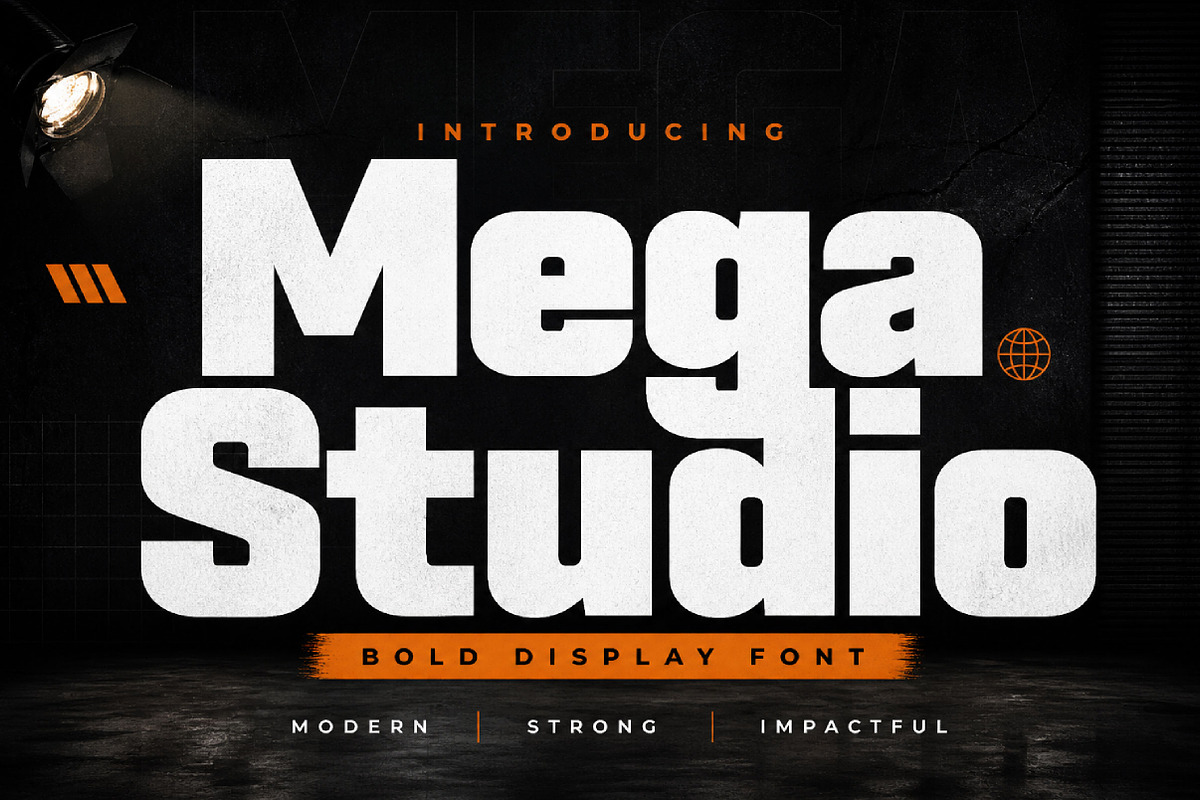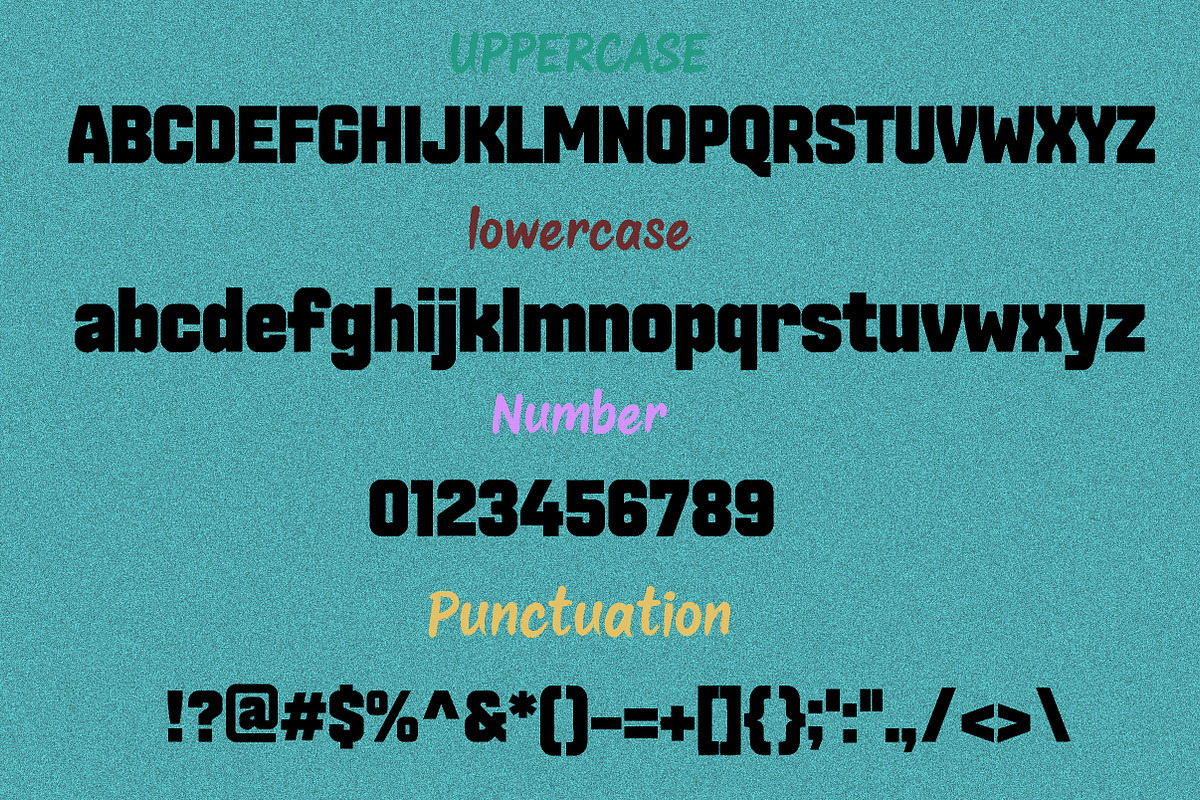
Mega Studio
Mega Studio – Bold Modern Display Font
Mega Studio is a bold modern display font with strong geometric shapes and a powerful visual style, perfect for logos, headlines, posters, branding, packaging, and creative studio designs.
Mega Studio is a bold display font designed to create a strong, confident, and memorable look. With its heavy letterforms, clean structure, and modern block-style appearance, this font is perfect for projects that need bold typography with maximum impact.
Its powerful and contemporary style makes Mega Studio ideal for logos, branding, poster titles, product packaging, social media graphics, merchandise, website headers, advertising, sports designs, gaming graphics, and creative studio projects.
Logos and branding
Posters and headlines
Product packaging
Merchandise design
Sports designs
Gaming graphics
Website headers
Advertising materials
Bold display typography
Uppercase letters
Lowercase letters
Numbers and punctuation
Bold display style
Strong geometric shapes
Modern block letterforms
Clean and powerful look
Perfect for headline use